Insight
It all begins with a quesition
In a constantly changing environment, what truly sustains us may be a sincere commitment to exploring what lies at the core. Under the theme “Those Who Question,” the 2025 Sandoll Saisiot: Type Conference brought together a wide range of explorers. Though their methods differed, the event made one thing clear: every meaningful piece of work begins with inquiry. Today, we’d like to share the story of [Saisiot 2025], held on October 18 this year.
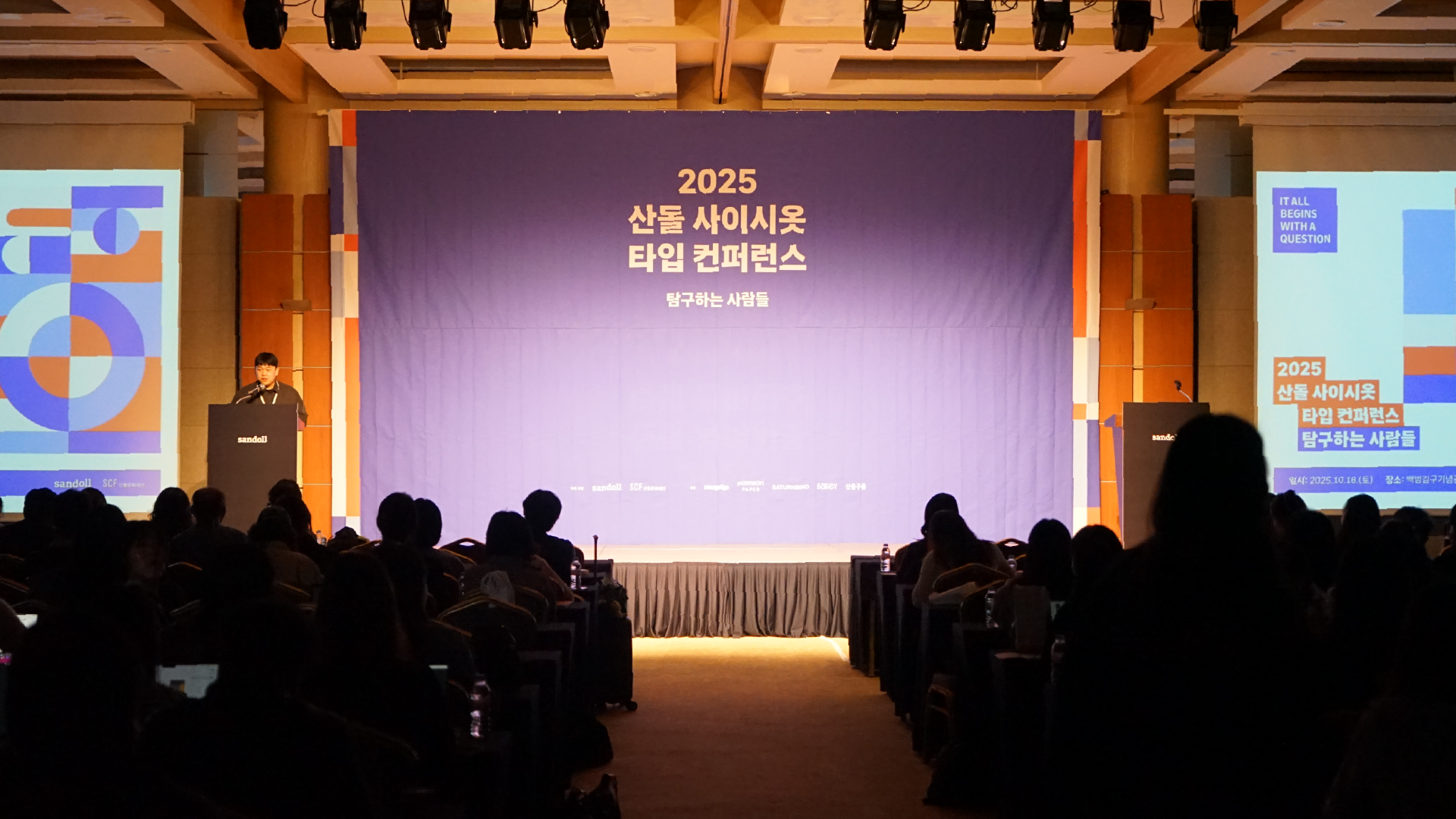
Sandoll believes in a world where anyone can express themselves freely, and actively supports the spirit of inquiry among creators. [Saisiot 2025] was planned as an extension of that belief. The theme “Those Who Question” reflects our philosophy and is visually expressed through the symbol of a question mark. It serves as a reminder that every act of exploration begins with a question.
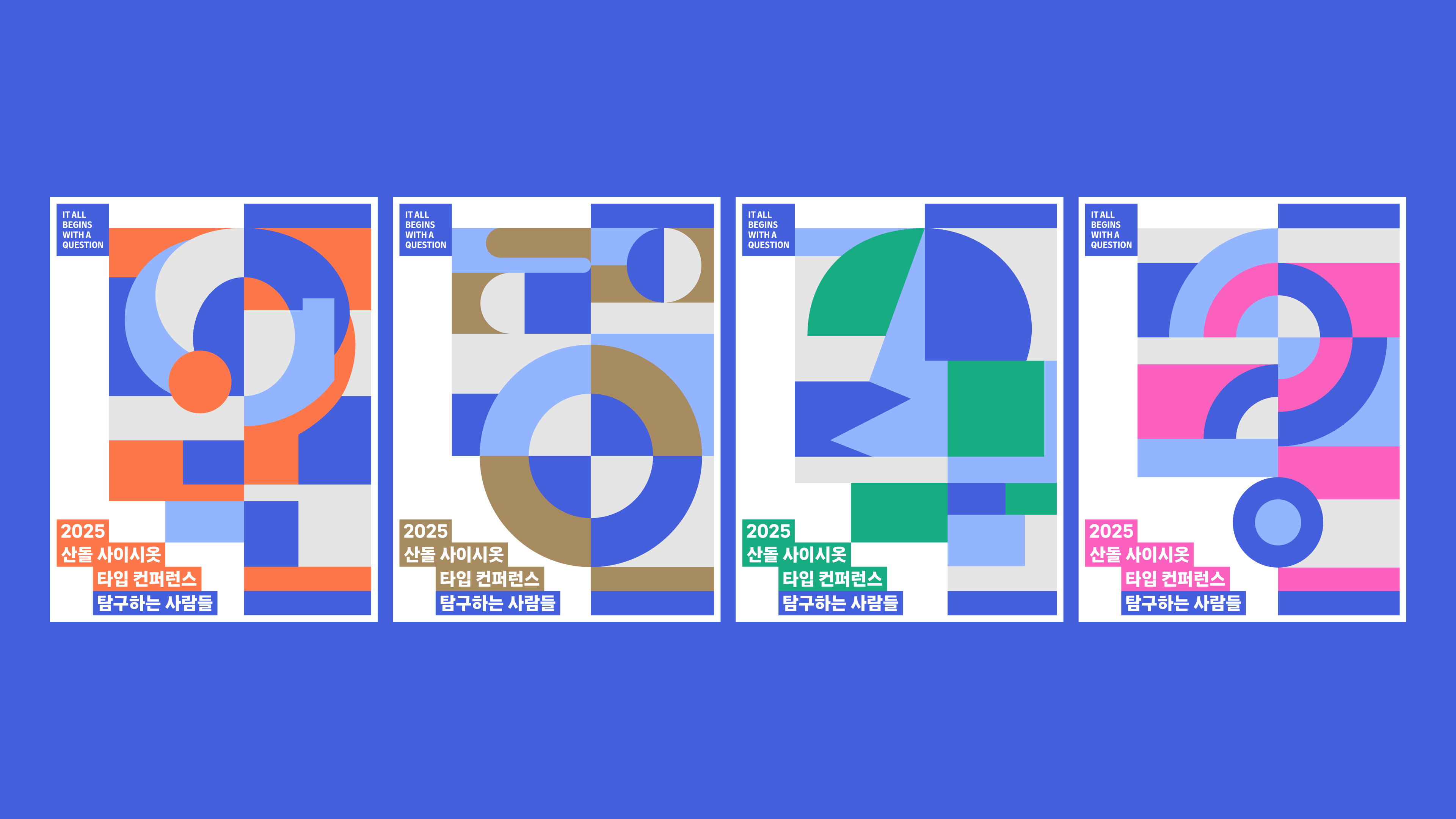
Those Who Question
Across the venue, we introduced various elements built around the act of questioning. One of them was the on-site registration system. A specific code was embedded into the registration page, and depending on how participants responded to a series of questions, they were guided into different questioning types. After completing registration, each participant could see what kind of questioner they were.
At [Saisiot 2025], Those Who Question were categorized into four types: ❶ Risk-taker, ❷Tracer, ❸Reframer, ❹Architect
The results page offered an interpretation of each type, along with insights into which types might resonate well together—turning the act of registration itself into a small exercise in inquiry.
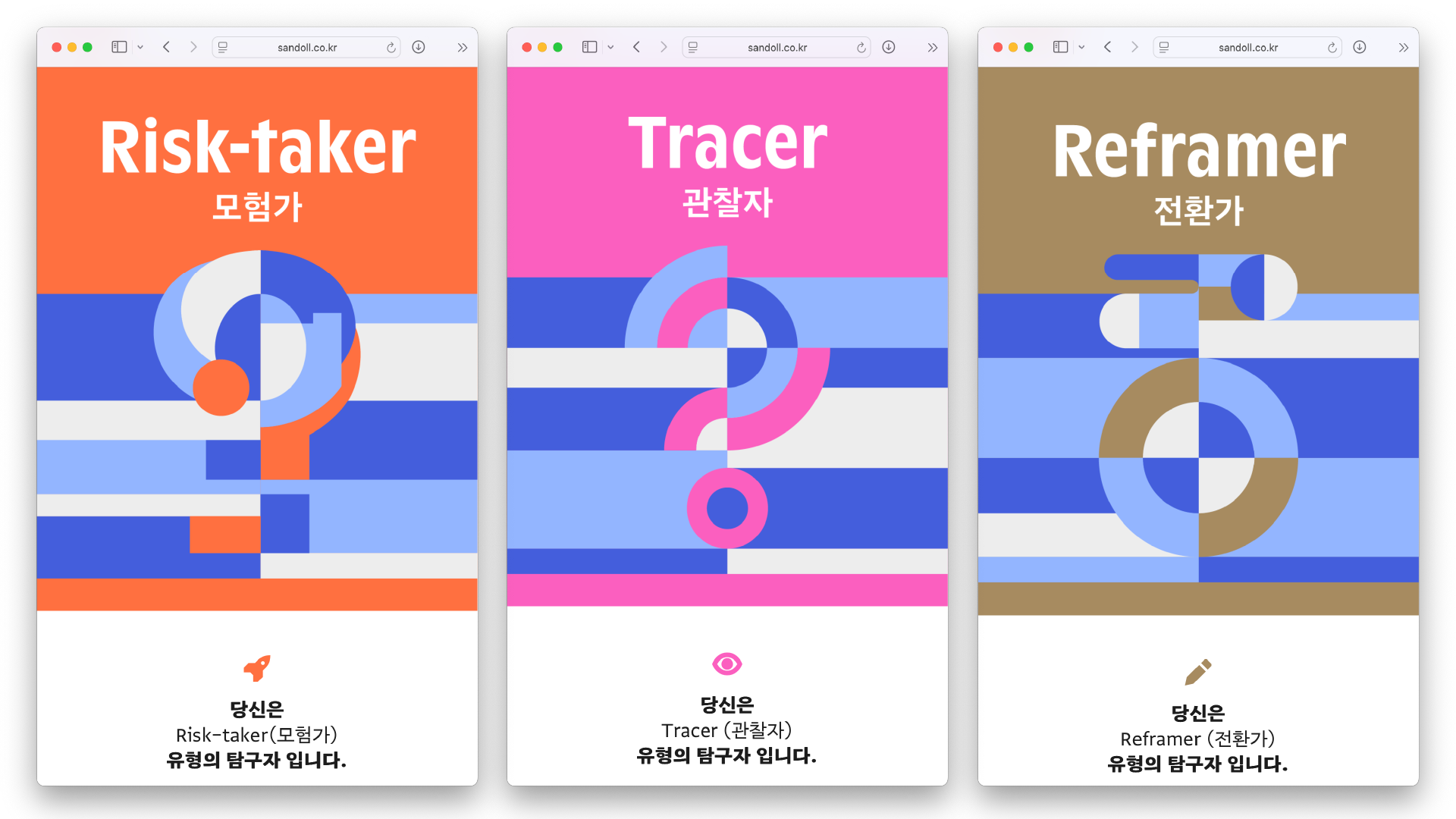
Shall We Question Together?
Beyond the talks, Saisiot extends the experience of inquiry in various ways, creating natural points of connection among Those Who Question. This year, we once again introduced the Siot Board, a shared space where participants could freely post their work. Posters, merchandise, business cards, and job listings filled the board. Alongside these, handwritten notes—personal intentions for the day—were added, allowing participants to share their thoughts in a more intimate way.
For those who find face-to-face networking a little daunting, we also prepared a way to participate remotely. We introduced the Letter Box, an event where participants’ letters were exchanged at random. You submit a letter of your own, then receive one written by another participant.
You may never see each other’s faces, yet people sharing the same space and interests become connected in a quiet, unexpected way. It was a fittingly curious experience—and one made possible by Sandoll’s most advanced human intelligence technology.
(Left) Letter Box exterior / (Right) Letter Box interior, with human intelligence sorting the letters
Saisiot 2025 was joined by a diverse group of brands. Samwon Paper, which has dedicated over 30 years to the study of paper; Nupip, known for its distinctive approach to styling; Saturnbird, leading a new dimension of coffee culture; and Baikii, exploring new ways to experience type—all took part in our shared inquiry. This year’s Saisiot went beyond simply introducing brands. Our hope was for participants to directly experience the outcomes of each brand’s ongoing exploration. With so many different forms of inquiry coming together in one place, we hope Sai-siot 2025 served as a meaningful source of inspiration.
Sessions
Thanks to everyone who joined Sandoll’s inquiry, [2025 Saisiot] could come together as a complete experience. On stage, we heard from speakers who have been pursuing their questions—steadily, for a long time—each from their own place in the field. With those voices still resonating, here is an introduction to the [2025 Saisiot] sessions.
Morning Light: Re-illuminating Original Hangul Type Jang Gaseok (Type Designer, Sandoll Design Studio) Hwang Ilseon (Book Designer, Minumsa Art Department) | First, the lecture centered on Sandoll’s new font 「SD Choyang」, set for release in November. 「SD Choyang」 is a font that focuses on preferences and needs within the publishing industry. The historical metal type referenced in its development was the body text type used in 『Joseonmal Keunsajeon』. Based on this, we explored the reinterpretation of the historical type and the production process in depth, and shared the refinement process together with Minumsa’s publishing team as the actual users.
“Designing Type, Really?” — Hwaljjak Myeongjo Between Restoration and Reinterpretation, on an Invisible Axis Minbon (Professor, Seoul Women’s University) | We shared an exploration of “optical sizing,” which aims to maintain a consistent visual impression as the size of type changes. The session covered the research process behind 「Hwaljjak Myeongjo」, which applies optical sizing—largely lost in the transition from metal type to phototypesetting and digital fonts—to Hangul. 「Hwaljjak Myeongjo」 is characterized by reinterpretations of three distinct metal types: Choi Jeong-ho (for headlines), Choi Jeong-sun (for body text), and Park Gyeong-seo (for footnotes). It is also available on Sandoll Cloud, and those interested can find more details via the link.
Core Experience Jeon Woosung (CEO, Seaside City) | In an era saturated with brands, this session explored how to build true distinctiveness. Moving beyond competition based on products and price, the talk highlighted the importance of the experience only a brand can deliver—what Jeon defines as the core experience. The concept is composed of two layers: functional core experience and emotional core experience. Through real-world cases where a brand’s core experience was identified and shaped, the session examined practical ways to clarify messaging and translate strategy into tangible brand expression. |
At Saisiot 2025, the speakers who shared their deeply considered perspectives—and everyone in the audience listening with bright, attentive eyes—were all Those Who Question. We believe that experiences which expand each other’s fields and invite learning will carry us further together. What new questions will we encounter next? We look forward to sharing deeper conversations sparked by new inquiries in 2026. Until then, see you again.